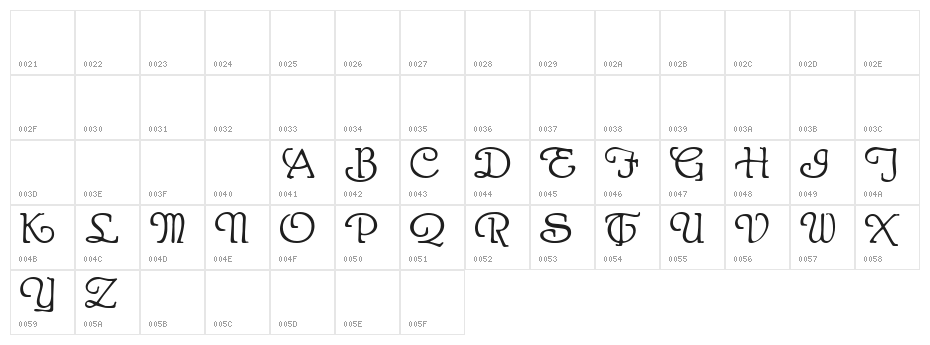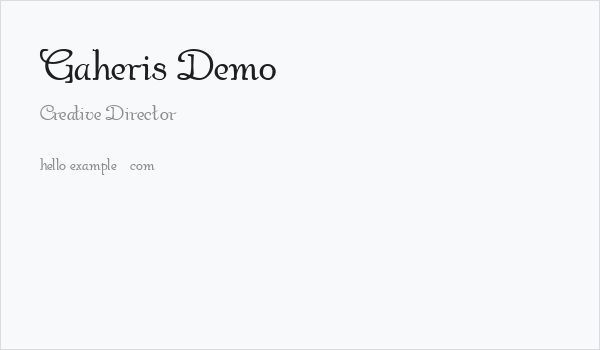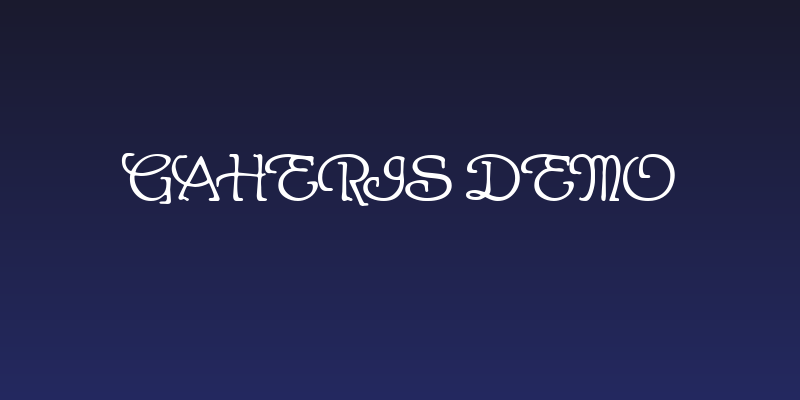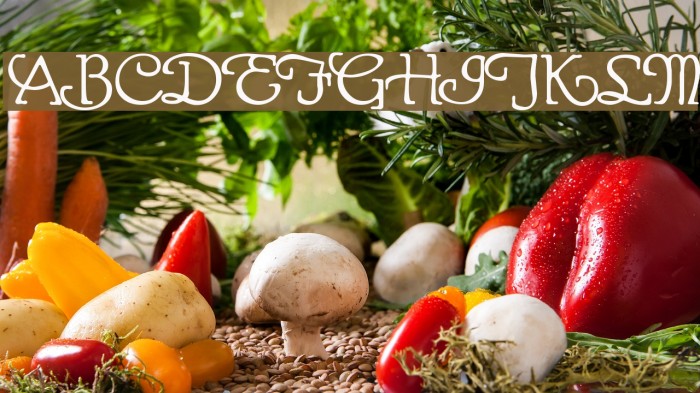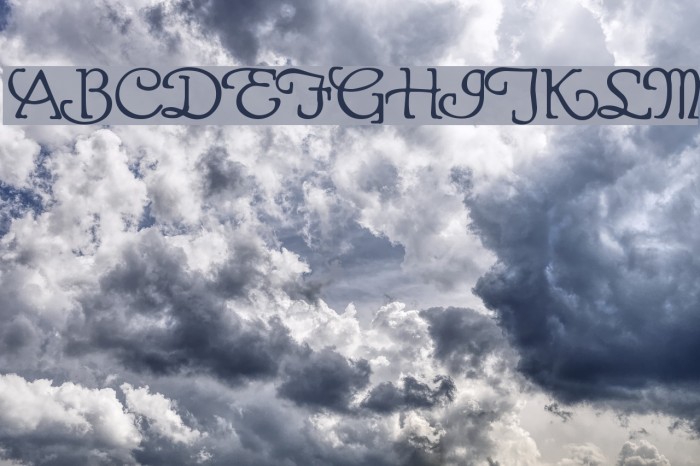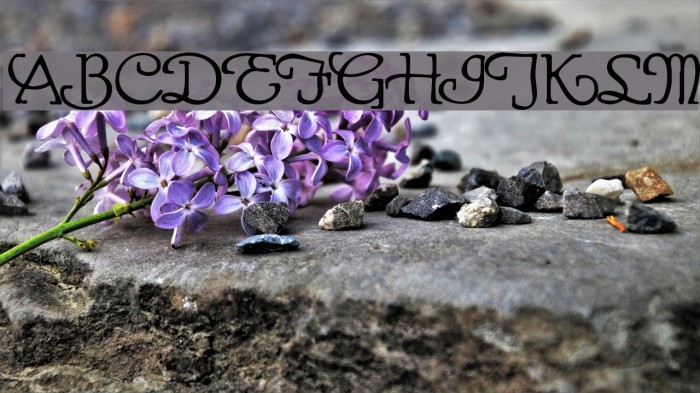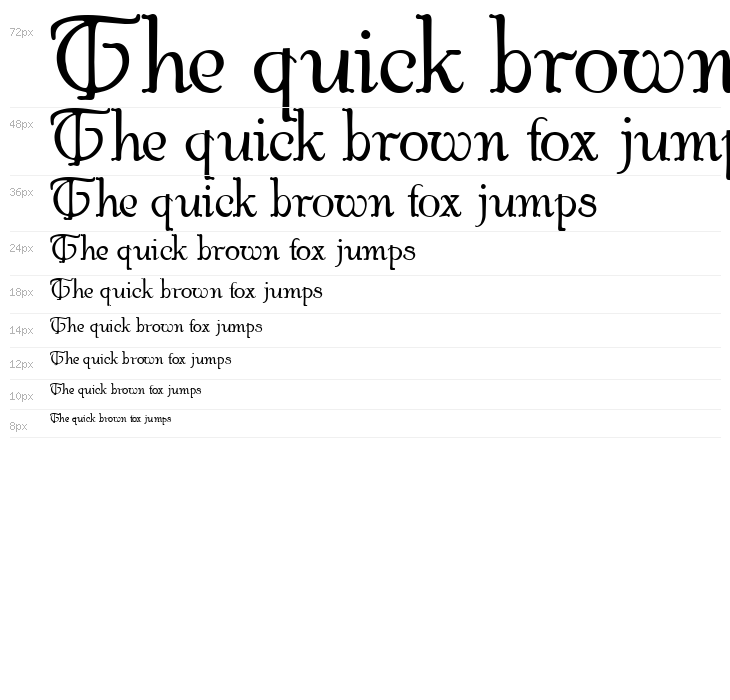
Gaheris Demo Font
| Область применения | Headlines, Logos, Artistic projects |
| Рекомендуемые проекты | Ideal for invitations, greeting cards, branding, and artistic projects requiring a touch of elegance and creativity. |